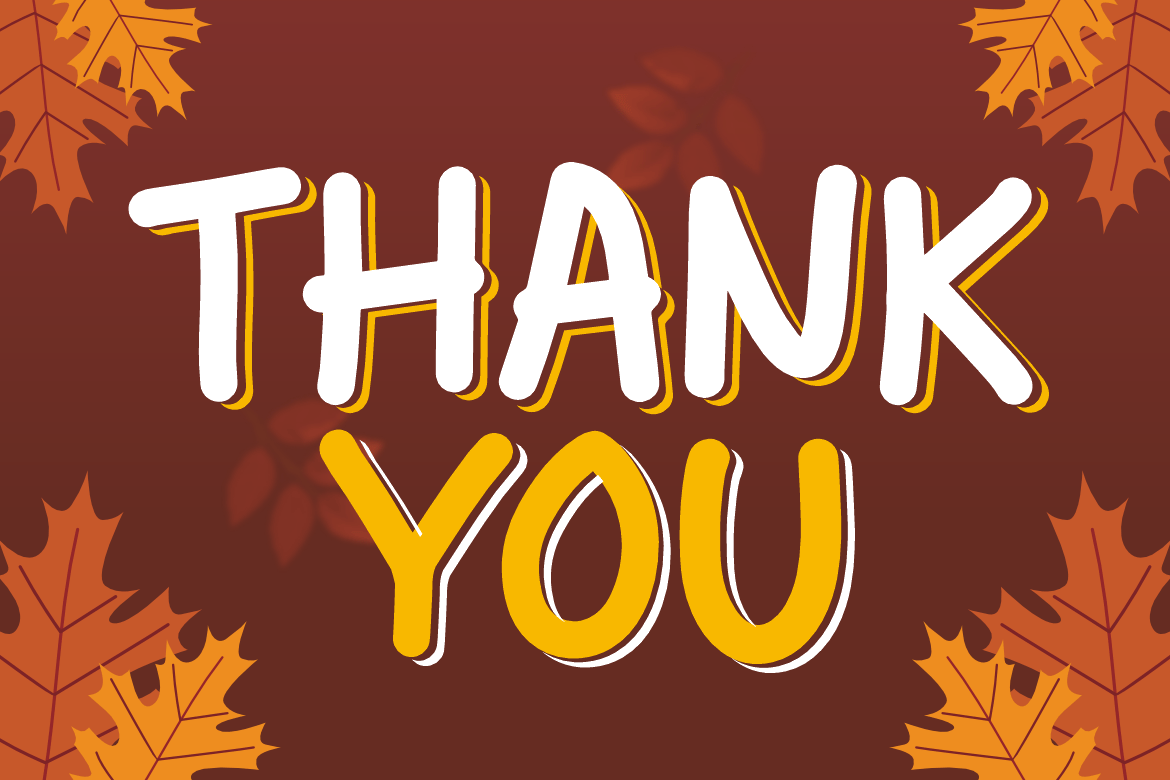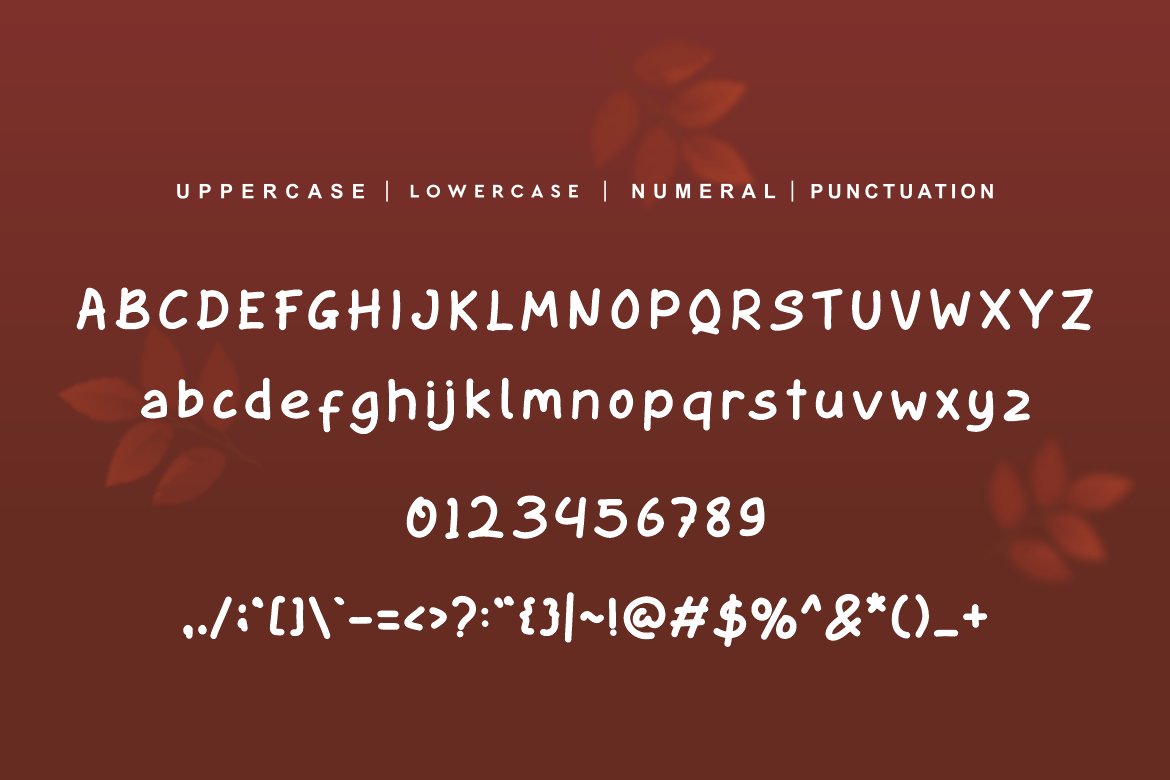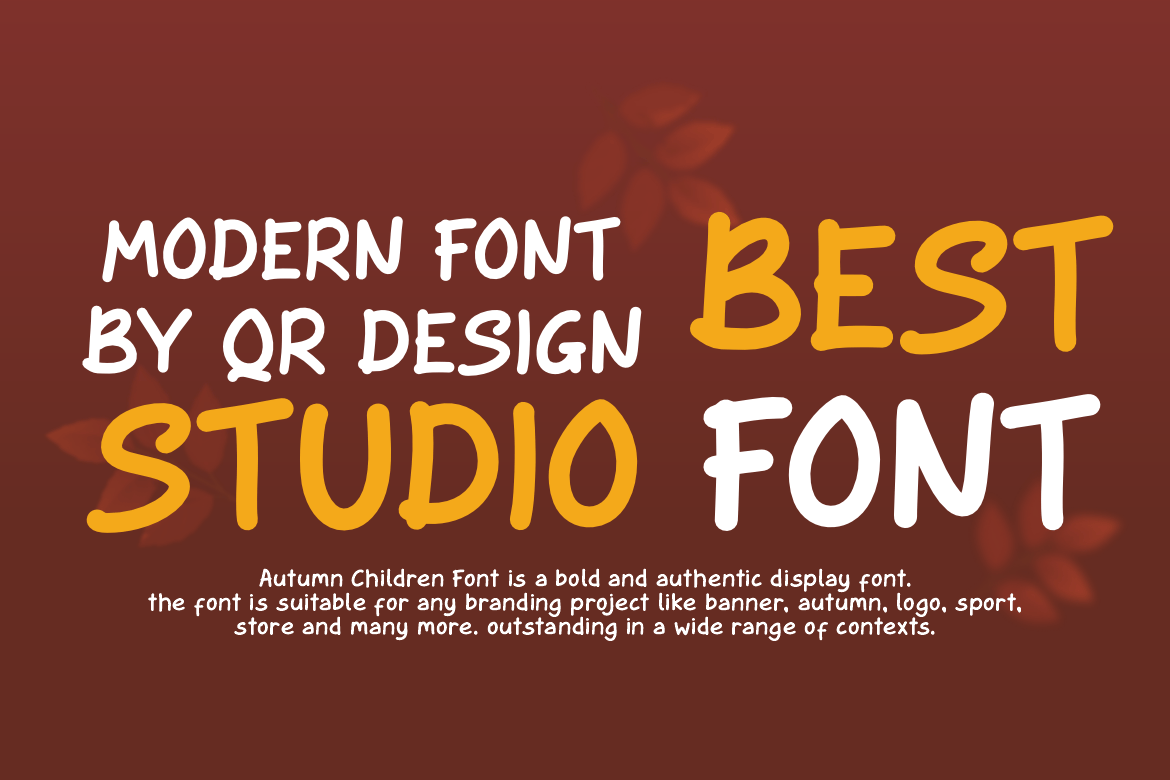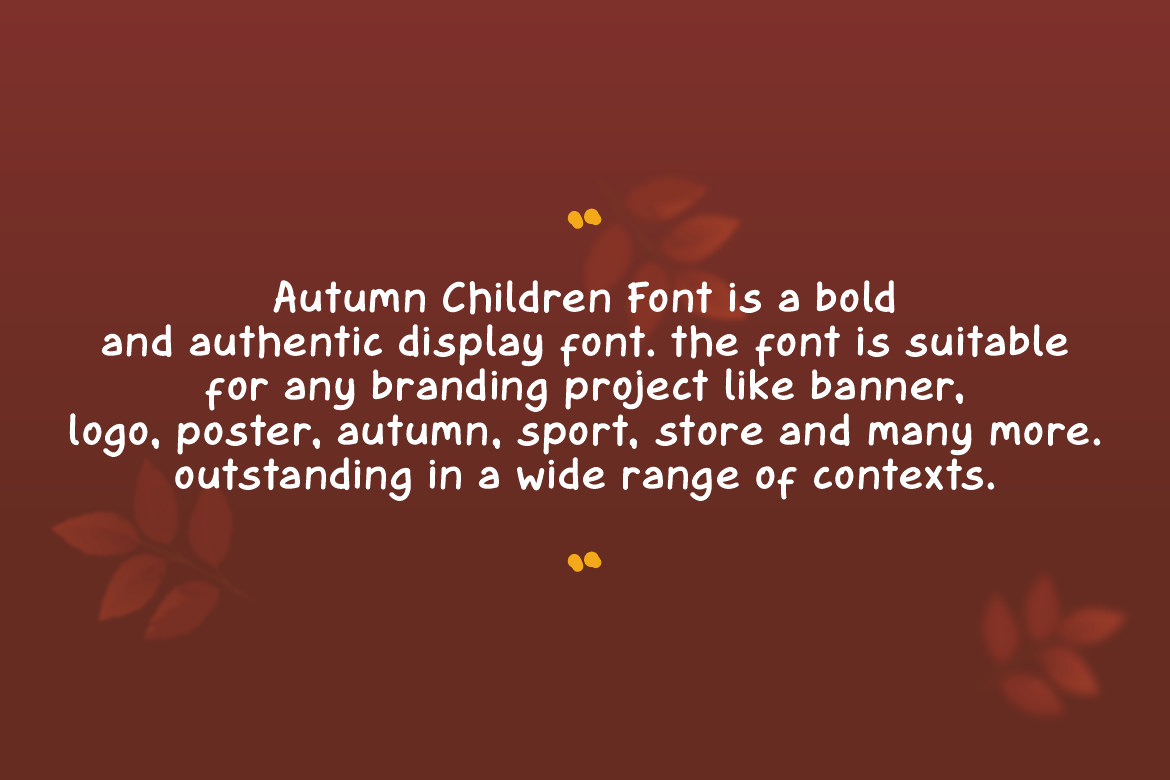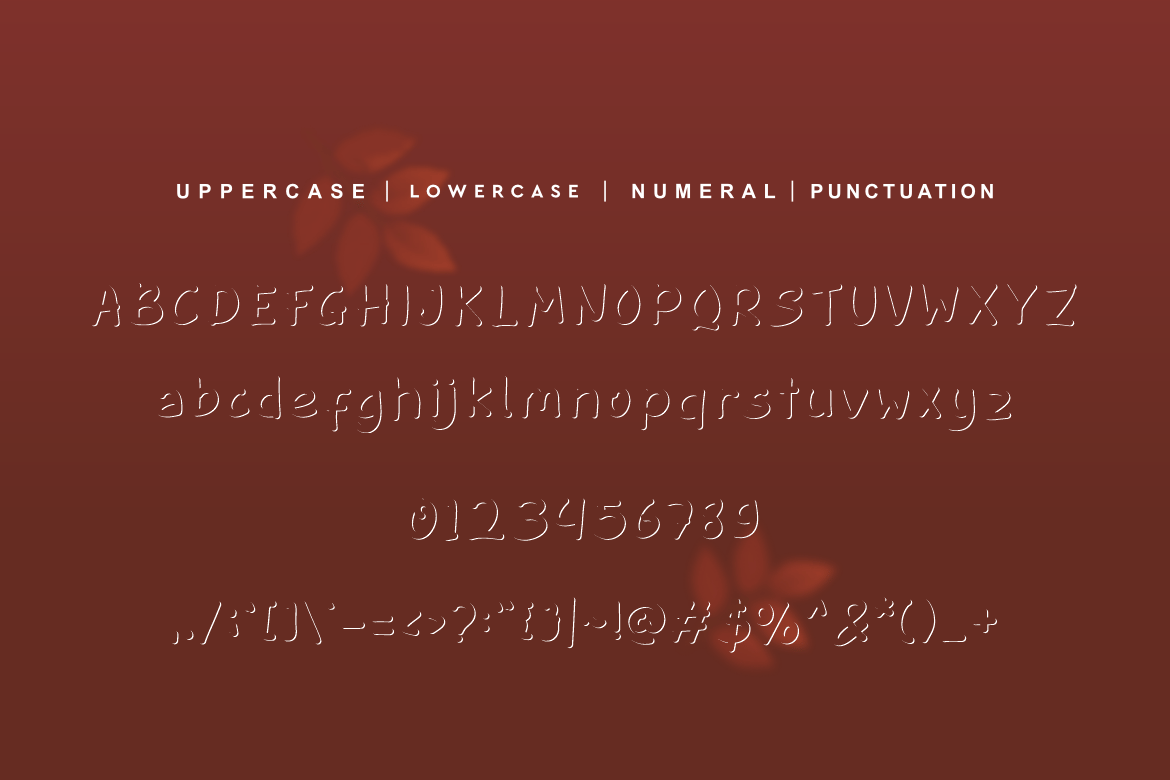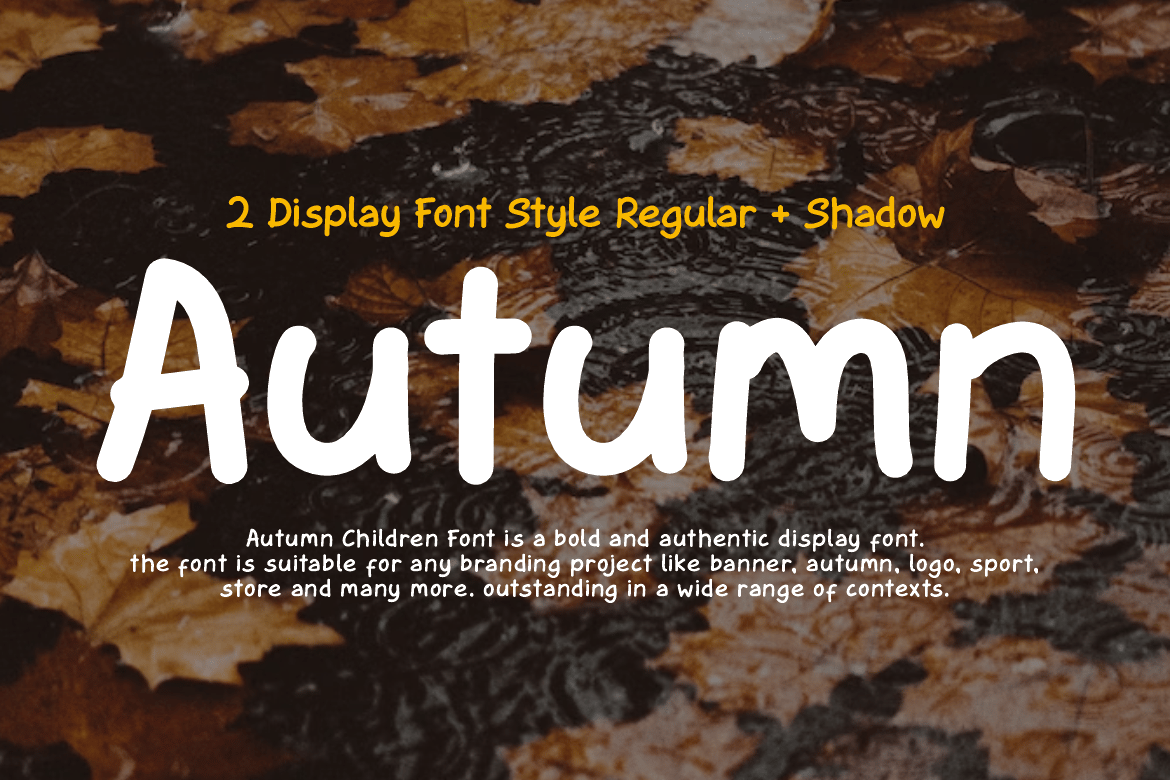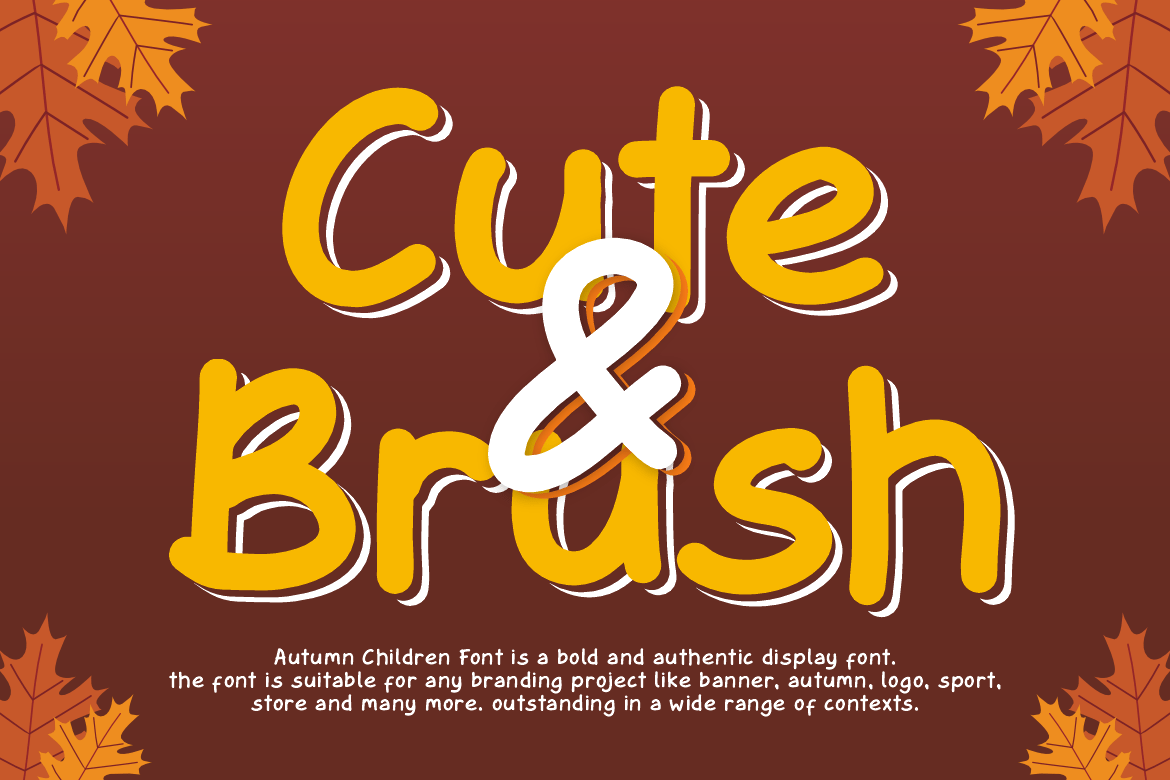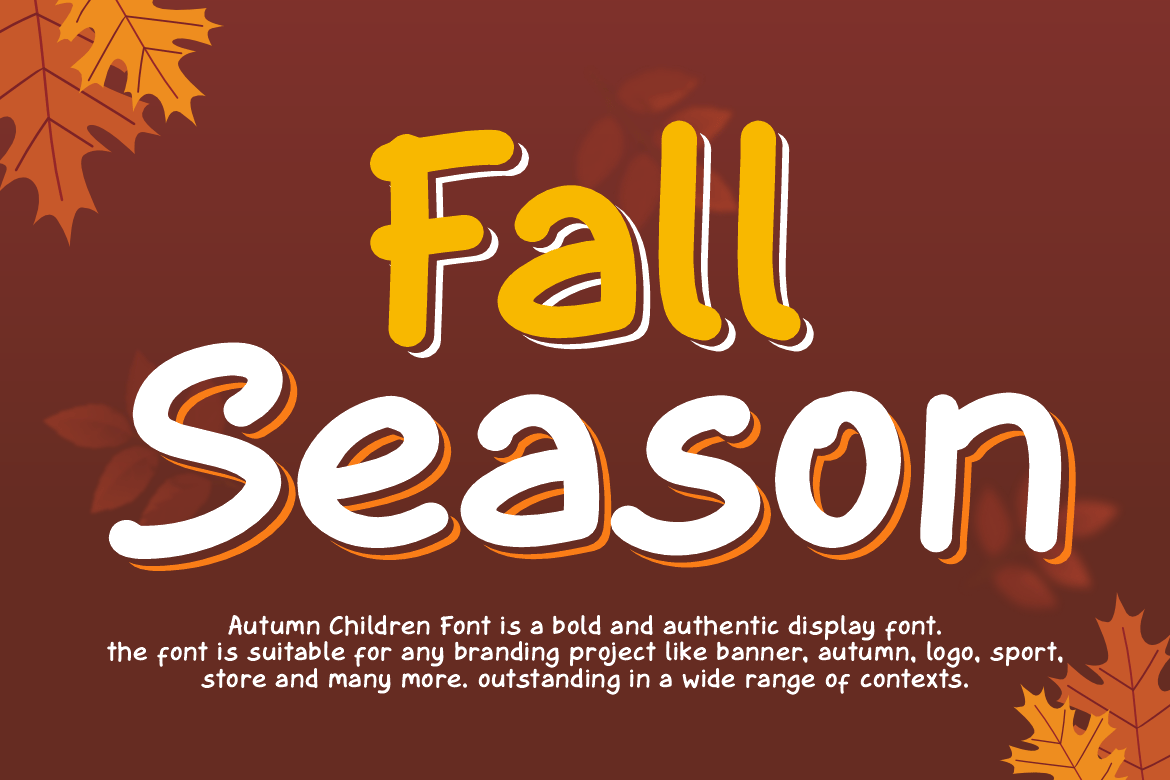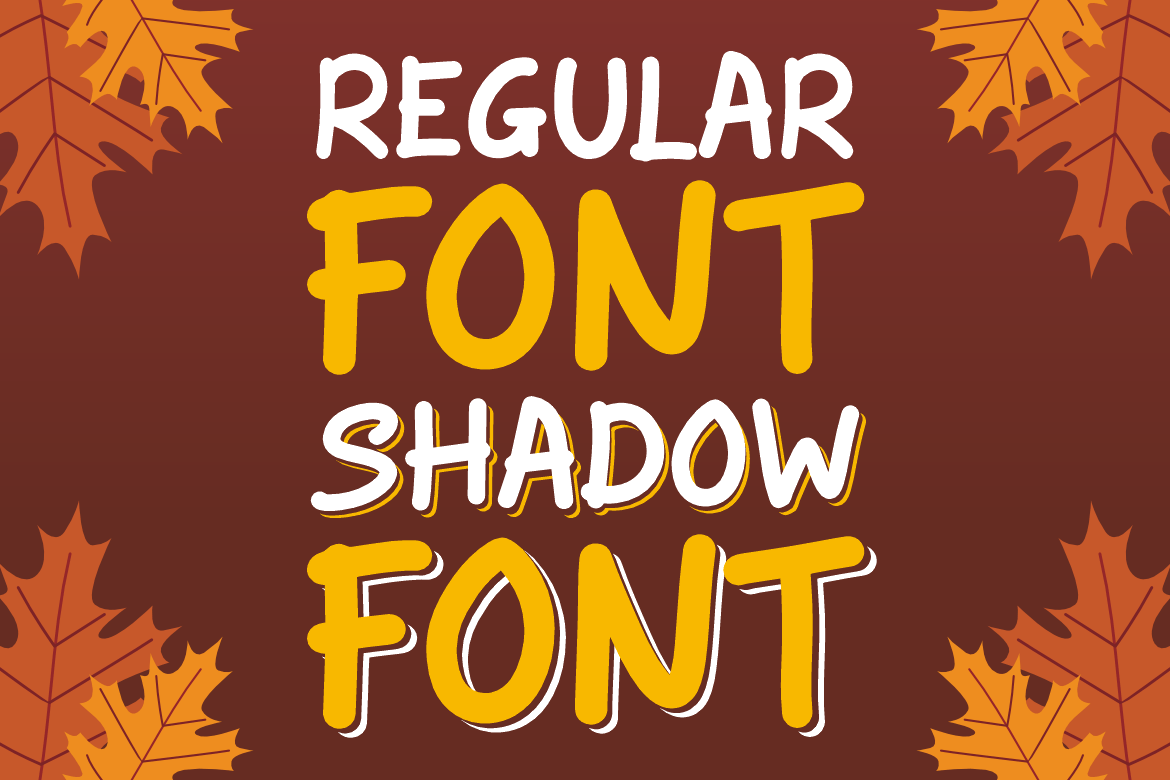
Autumn Children – Display Font
Autumn Children – Display Font is a bold and authentic display font. The font is suitable for any branding project like logo, Autumn, summer, greeting card, and many more. Outstanding in a wide range of contexts.